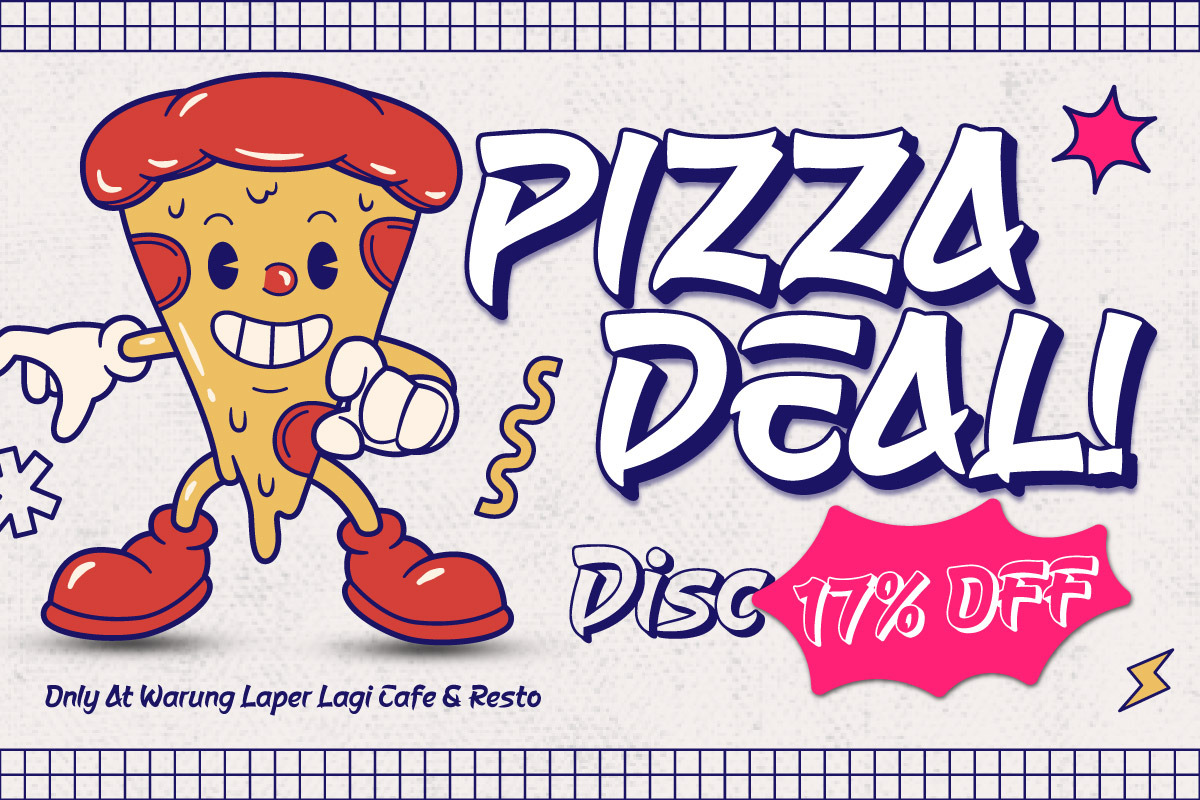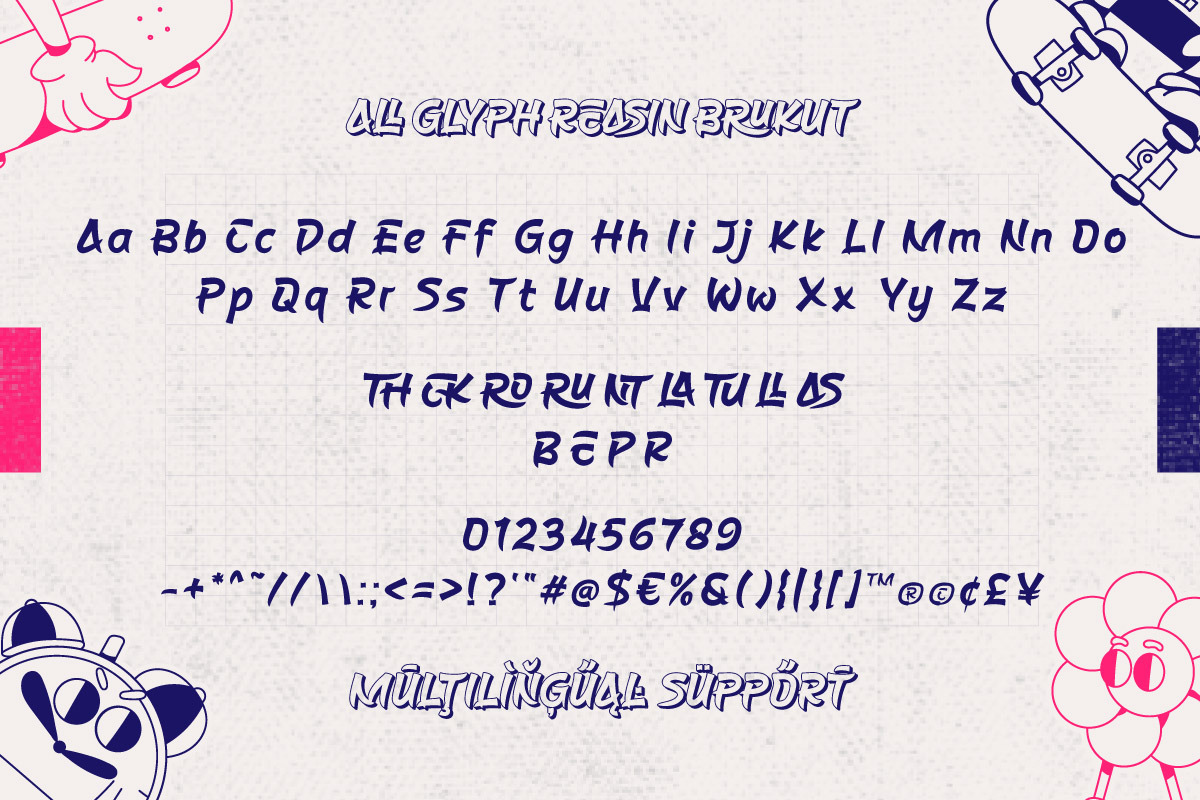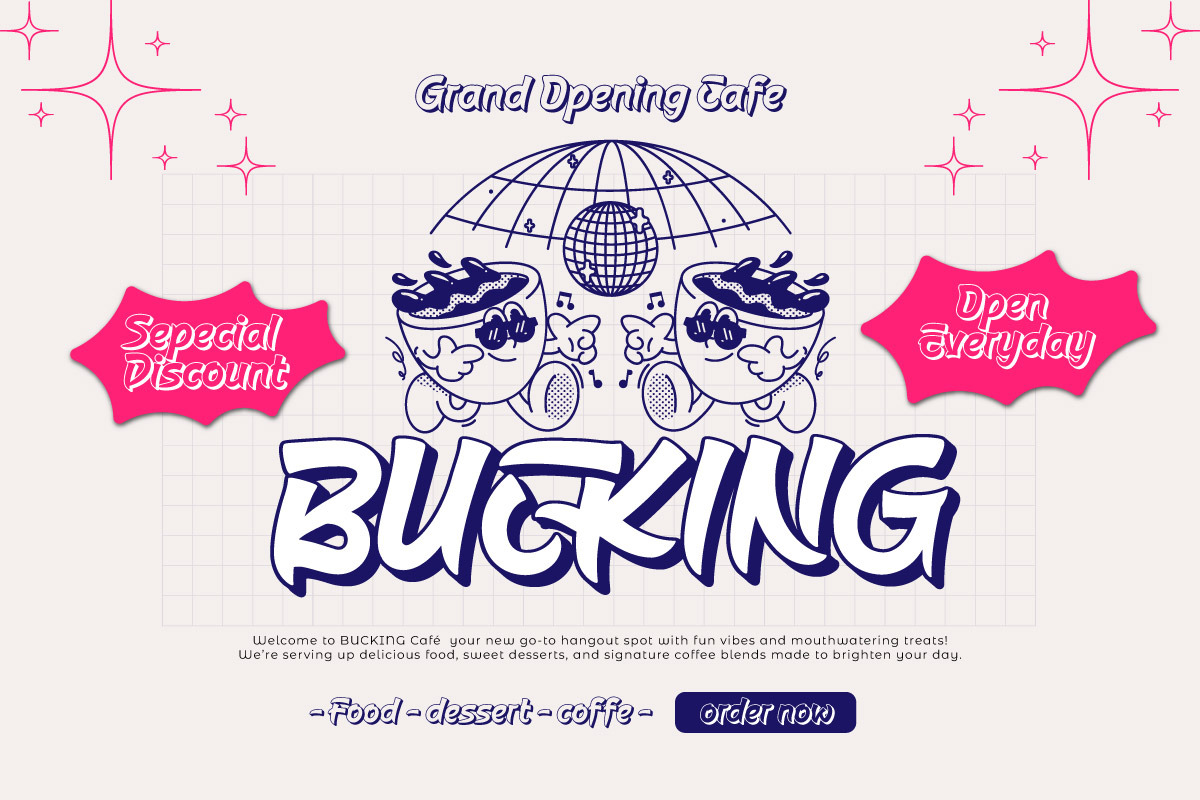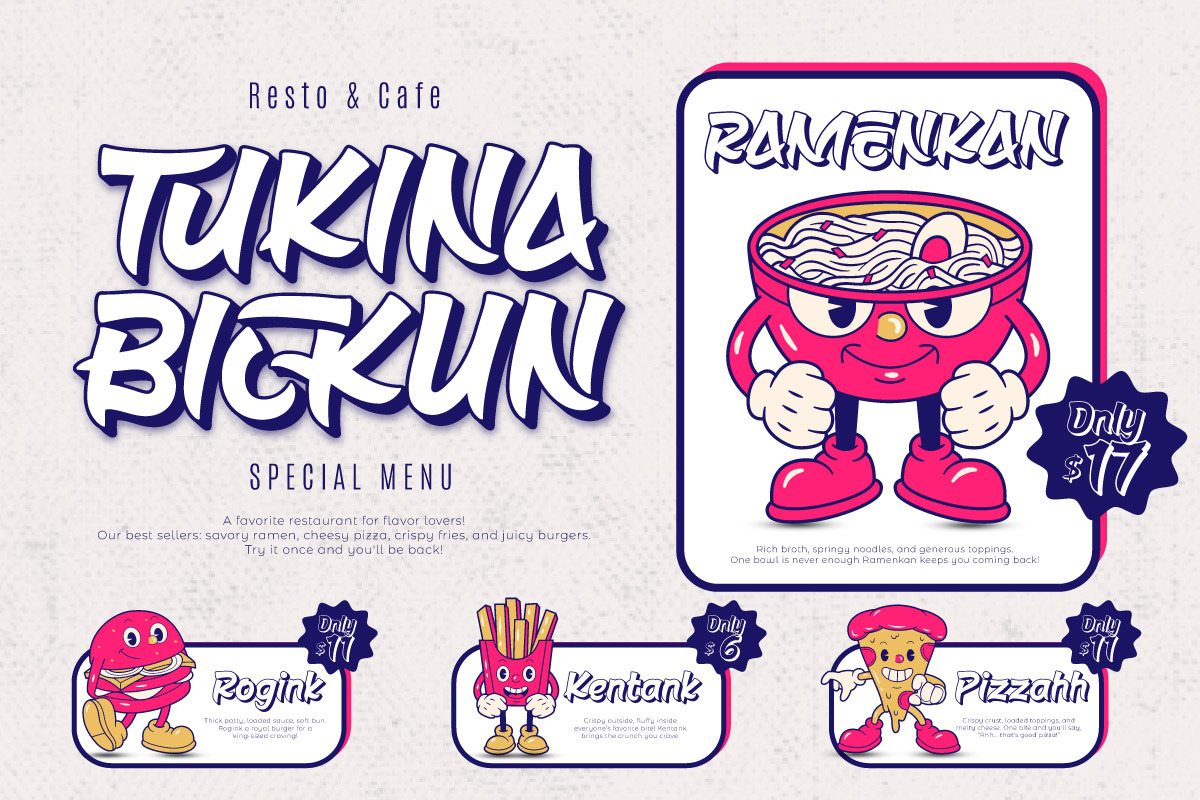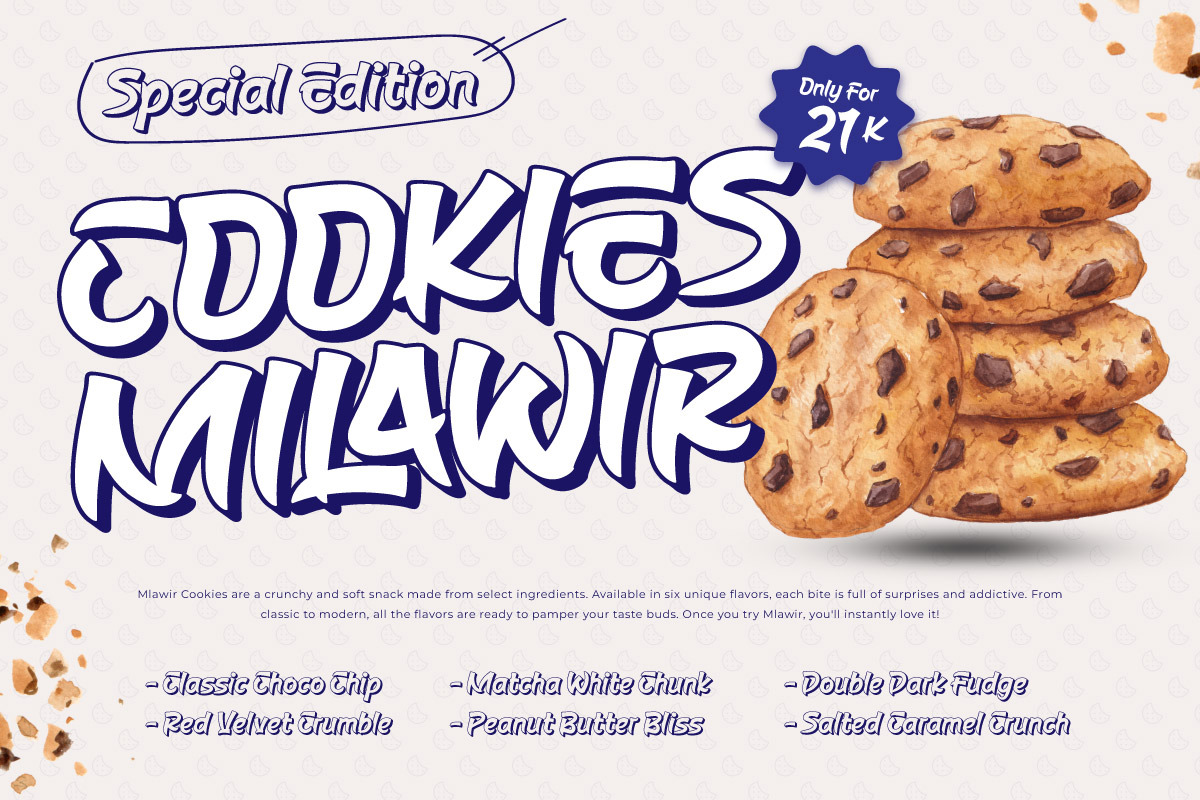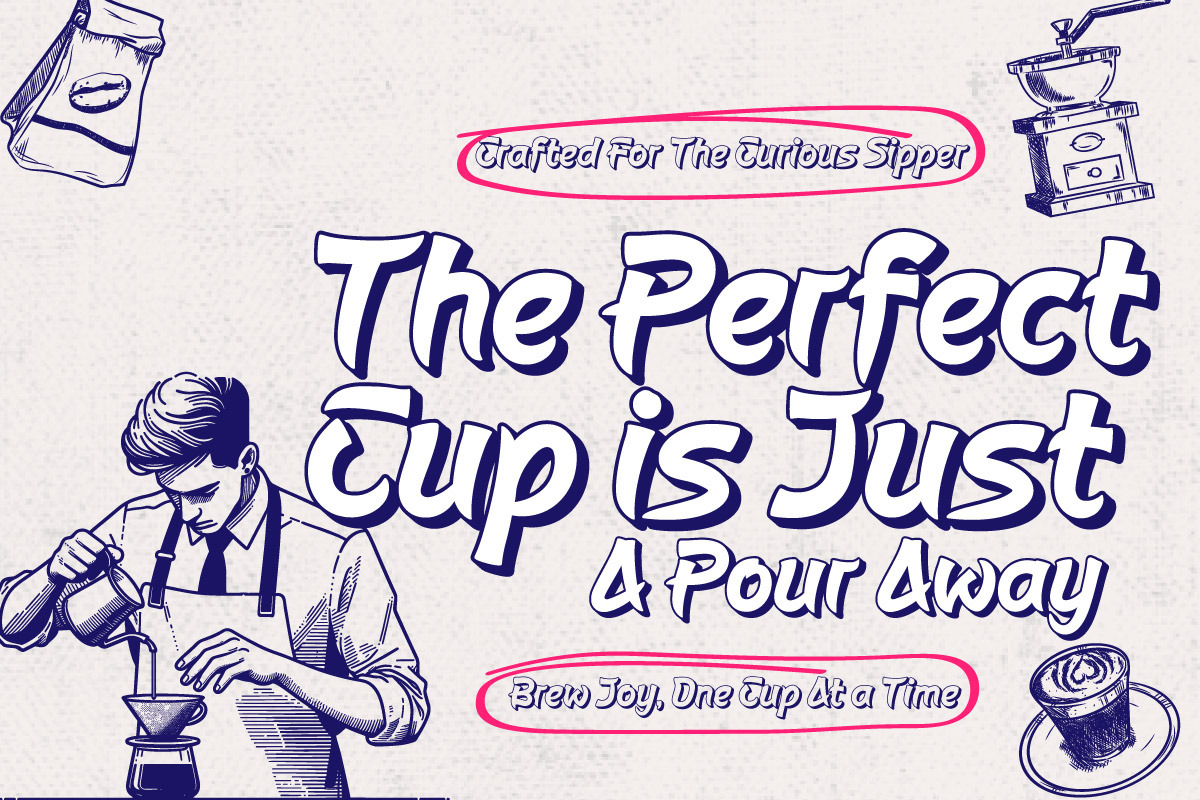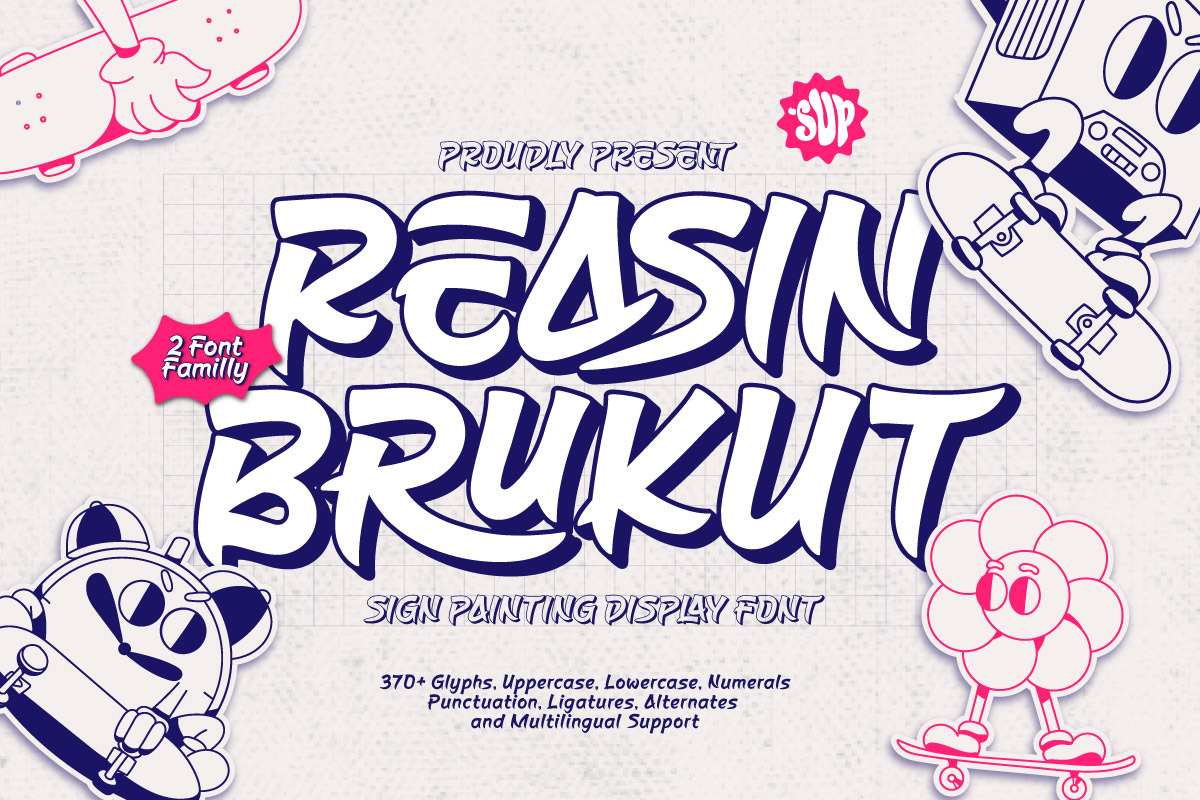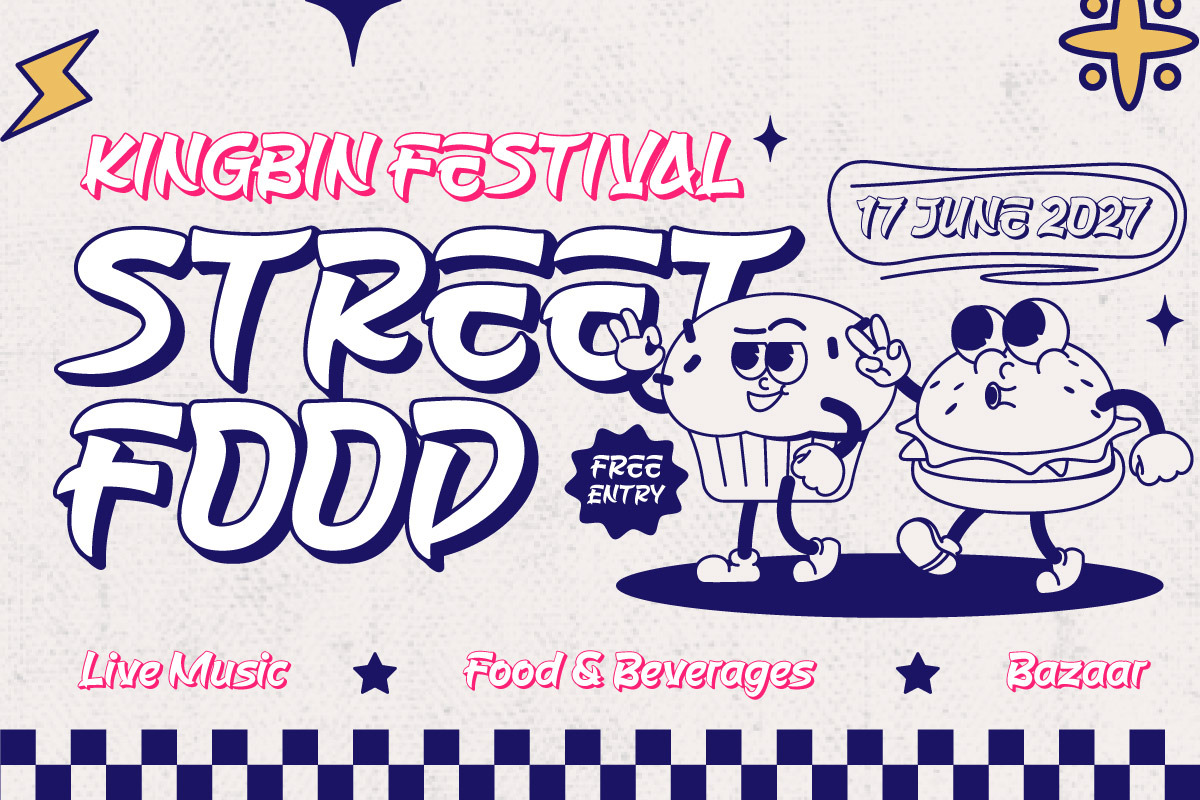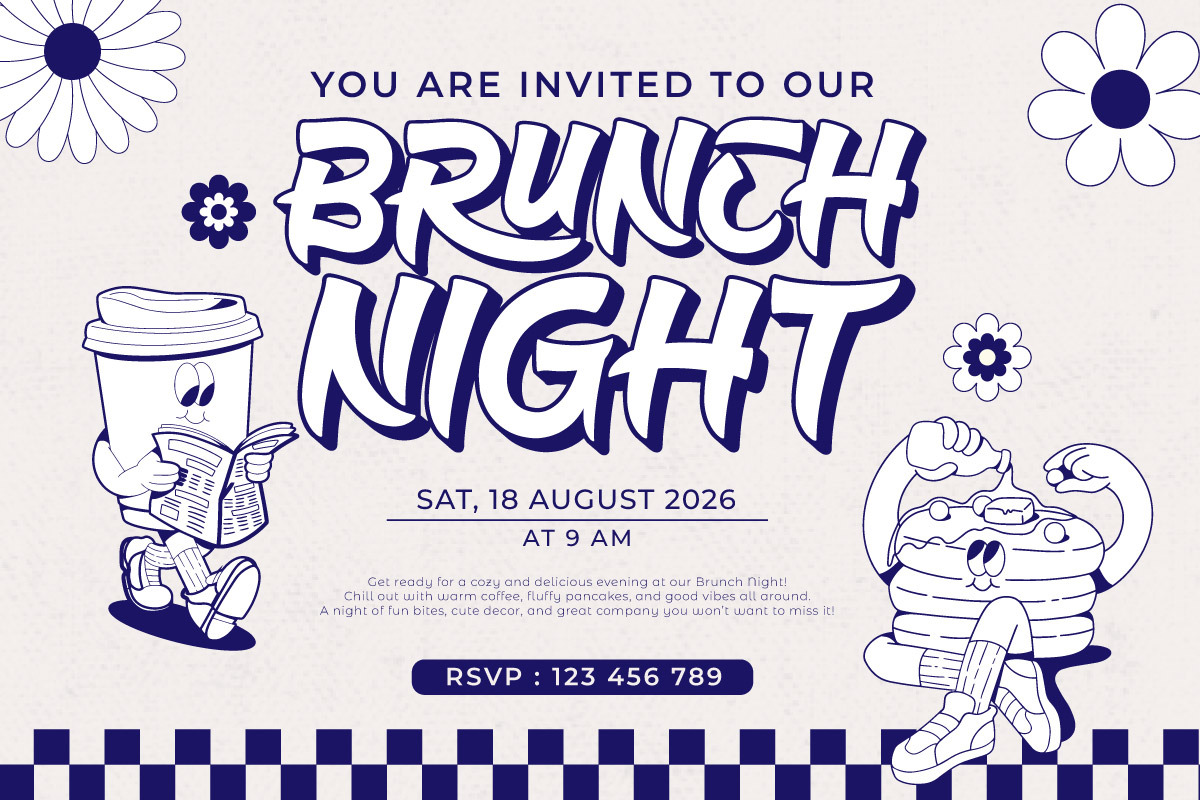
Reasin Brukut - Sign Painting Font
Reasin Brukut is a bold and expressive sign painting display font that blends retro charisma with hand-painted authenticity. Designed to mimic classic signage, this font family includes Regular, Blury, and Shadow styles—giving you the tools to craft eye-catching designs with a handcrafted feel.
The Regular style presents confident, dynamic brush strokes suitable for branding, poster titles, or headlines. The Blury style introduces a soft, atmospheric edge, ideal for vintage effects or dreamy aesthetics. Meanwhile, the Shadow style offers dimensional depth, helping your typography jump off the page.
Whether you're designing restaurant menus, storefront signs, beverage packaging, or nostalgic branding, Reasin Brukut brings personality and visual impact that stands out in both print and digital formats.